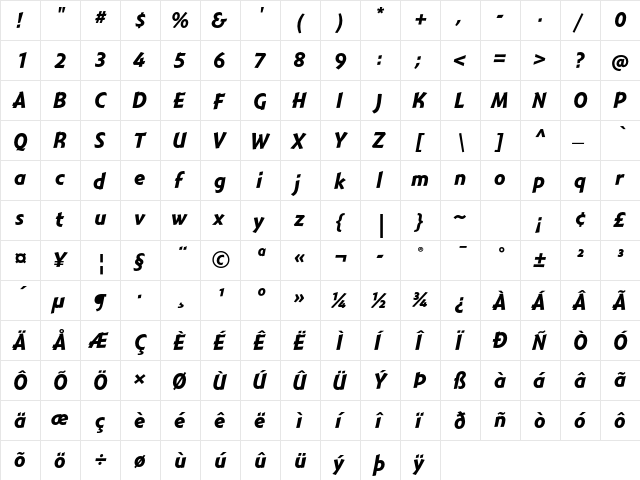
Montara Bold Italic
| Designer | Jim Parkinson |
Design Context for Montara Typeface
Montara takes a measured approach to typography — its balanced proportions and neutral character make it a reliable workhorse for both digital and print work. The slanted form adds forward momentum and visual energy. The heavy weight commands attention and anchors typographic hierarchies.
Pro Tip: Try Montara for annotation and caption copy alongside an upright companion — the contrast in angle creates a dynamic but ordered typographic system.